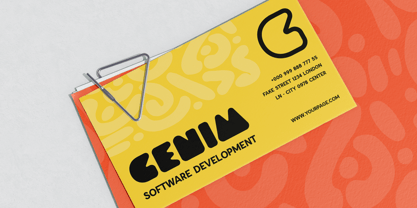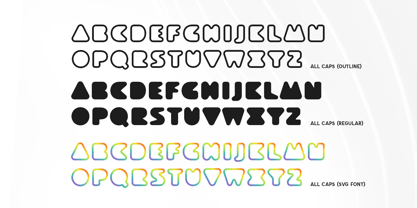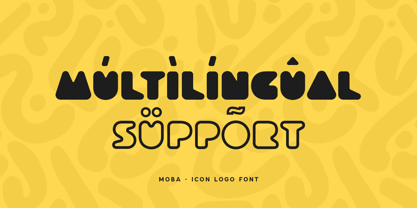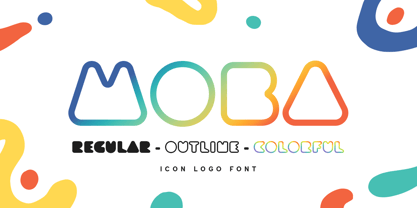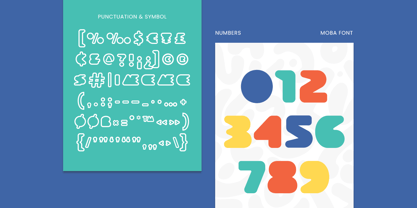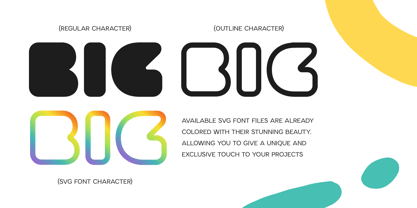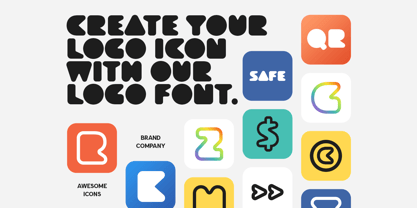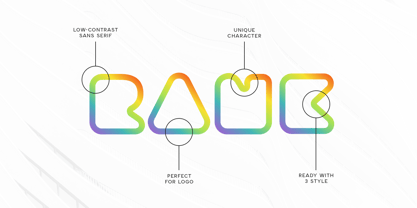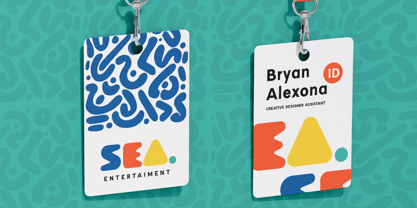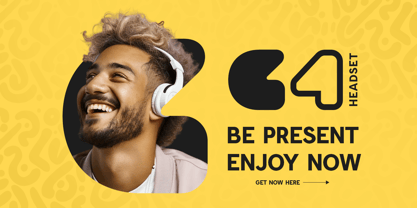
Moba - Icon Logo Font
Moba is an innovative icon logo font designed for modern branding needs. With a sleek combination of icons and letterforms, Moba brings both functionality and style to logos and brand identities. Its versatility, paired with a clean and bold aesthetic, makes it ideal for logos, icons, and creative branding projects.
The inspiration behind Moba is to merge minimalistic design with functionality. Each character is thoughtfully crafted to provide not only beautiful letterforms but also the perfect iconographic style that can be used across various platforms. Whether you're creating logos for tech brands, apps, or minimalist websites, Moba ensures a consistent, elegant finish.
Moba comes with regular, outline, and colorful (SVG) font styles, offering maximum flexibility in your design work. With its alternative characters and multilingual support, Moba is built to adapt to different creative demands, making it a perfect choice for logo and icon design.
Moba Icon Logo Font Features:
• Ready with: Regular, Outline, Colorful (SVG) fonts
• Alternative Characters Ready
• Unique Punctuation, Number, and Symbol
• Uppercase and Lowercase
• Multilingual Support
• Opentype Features